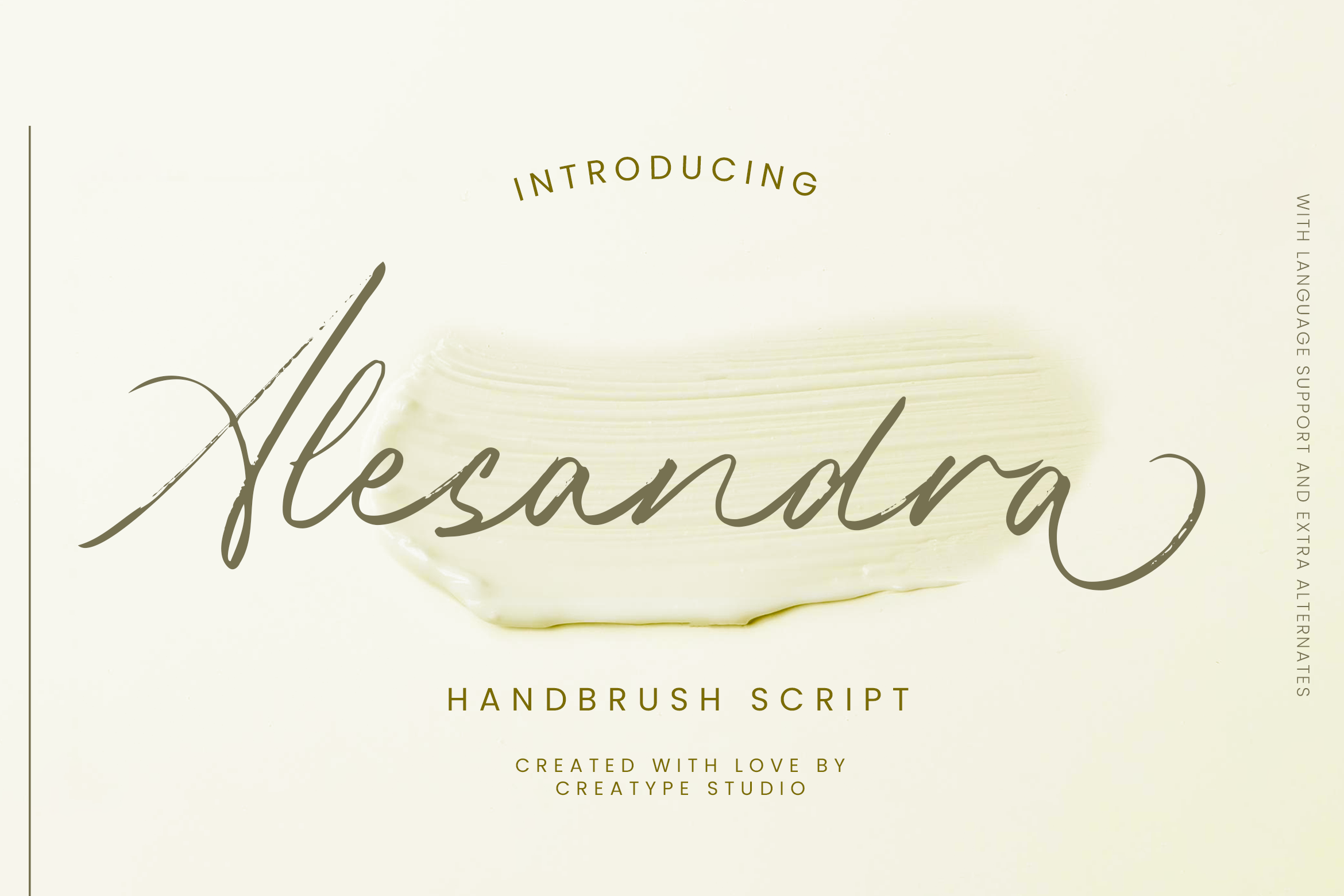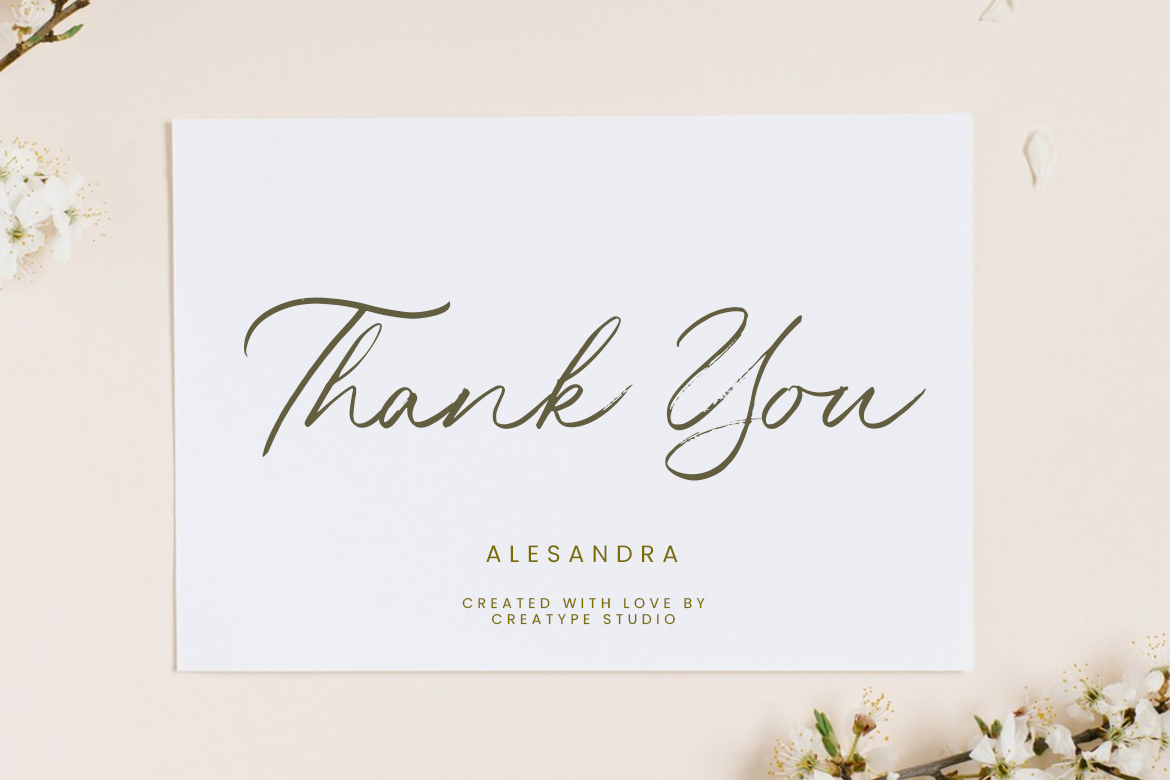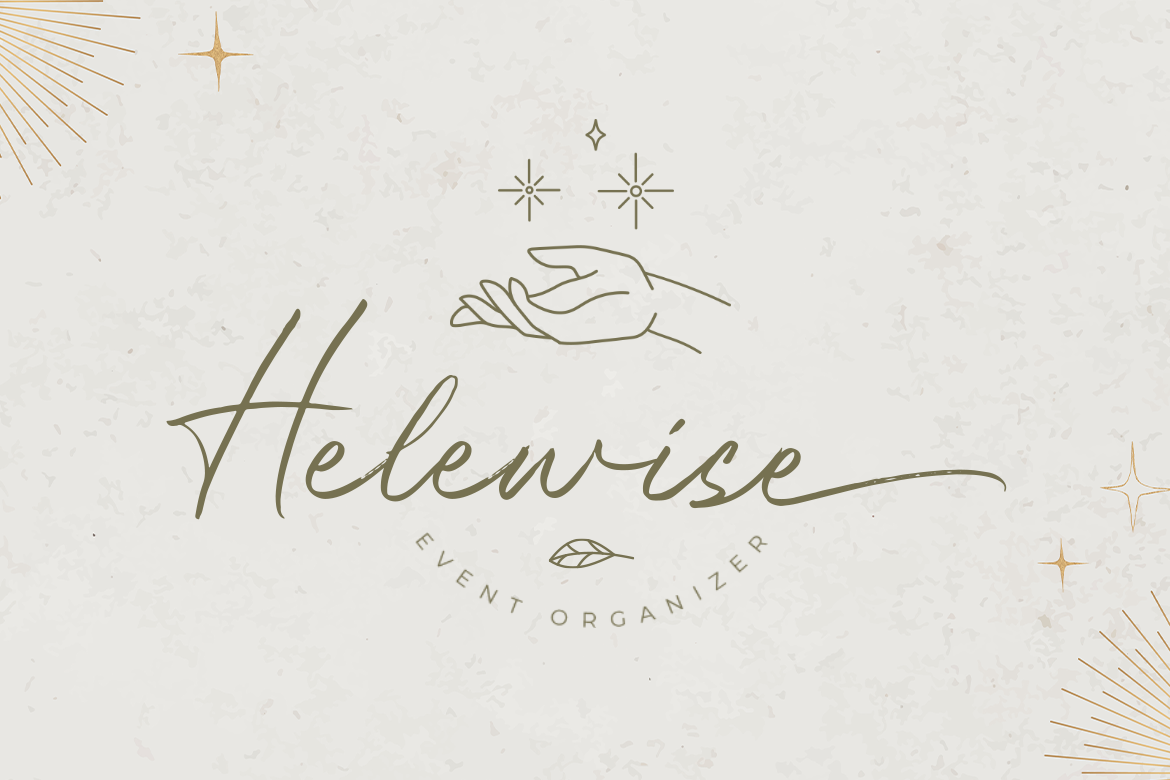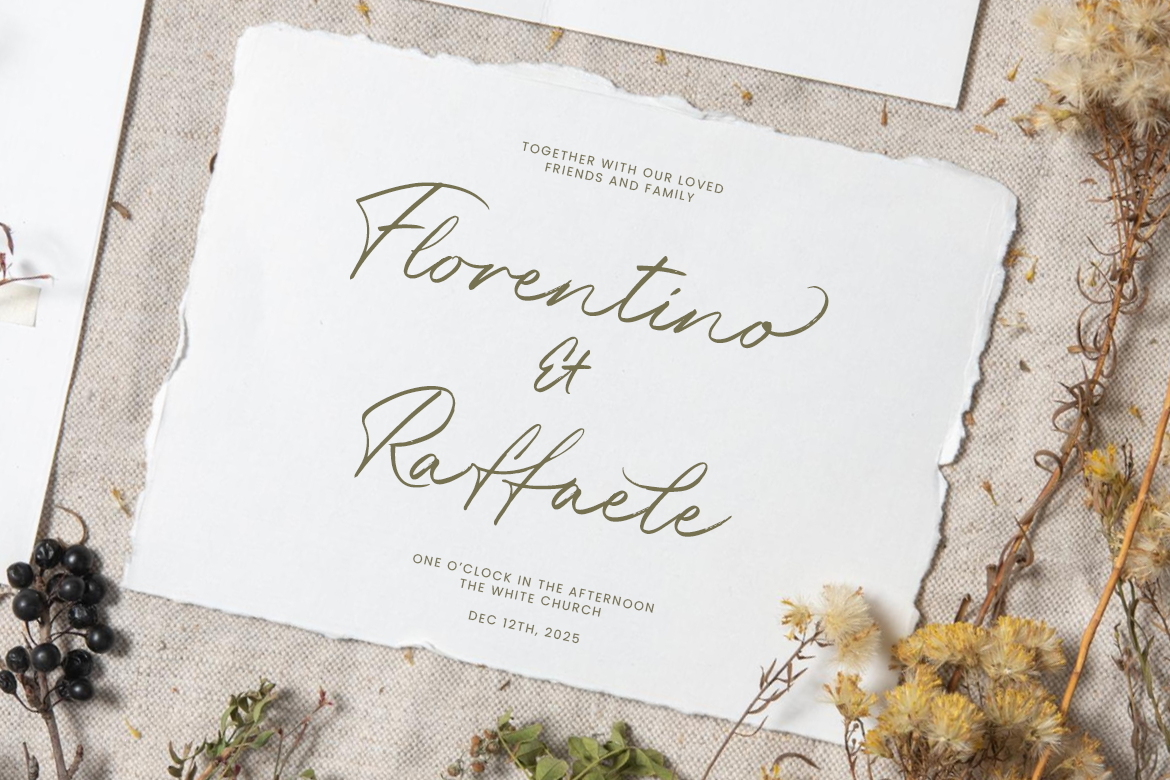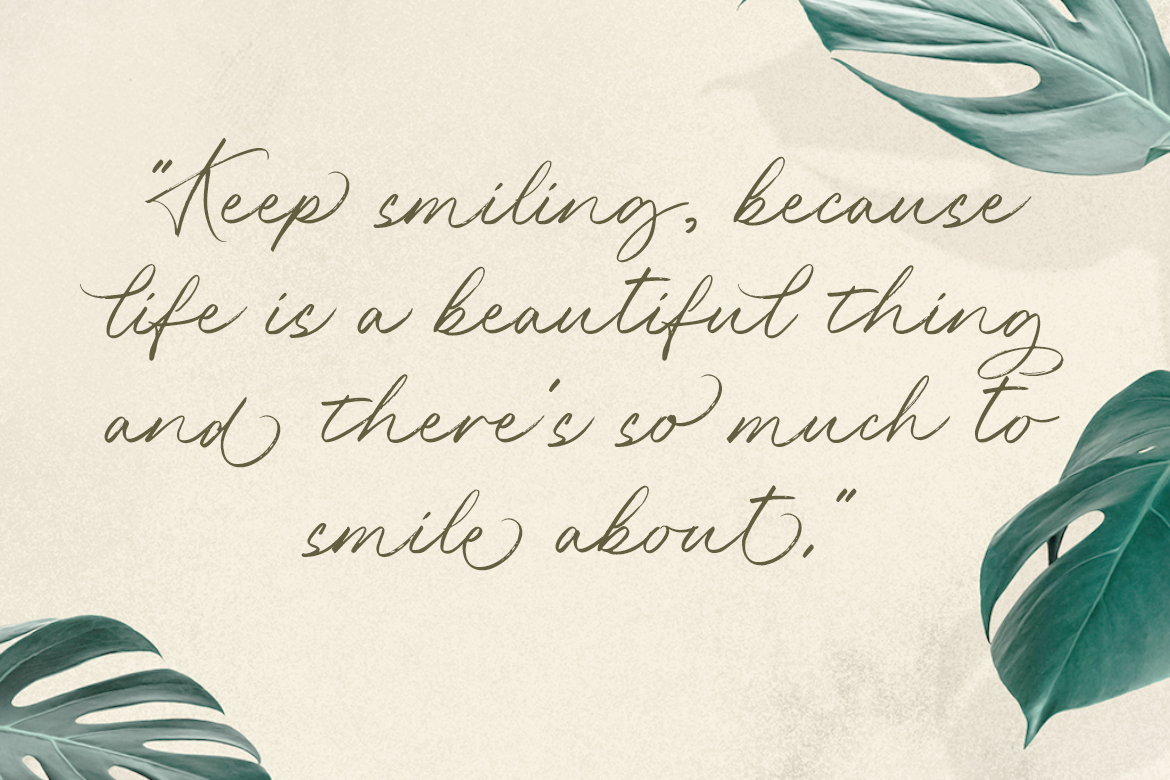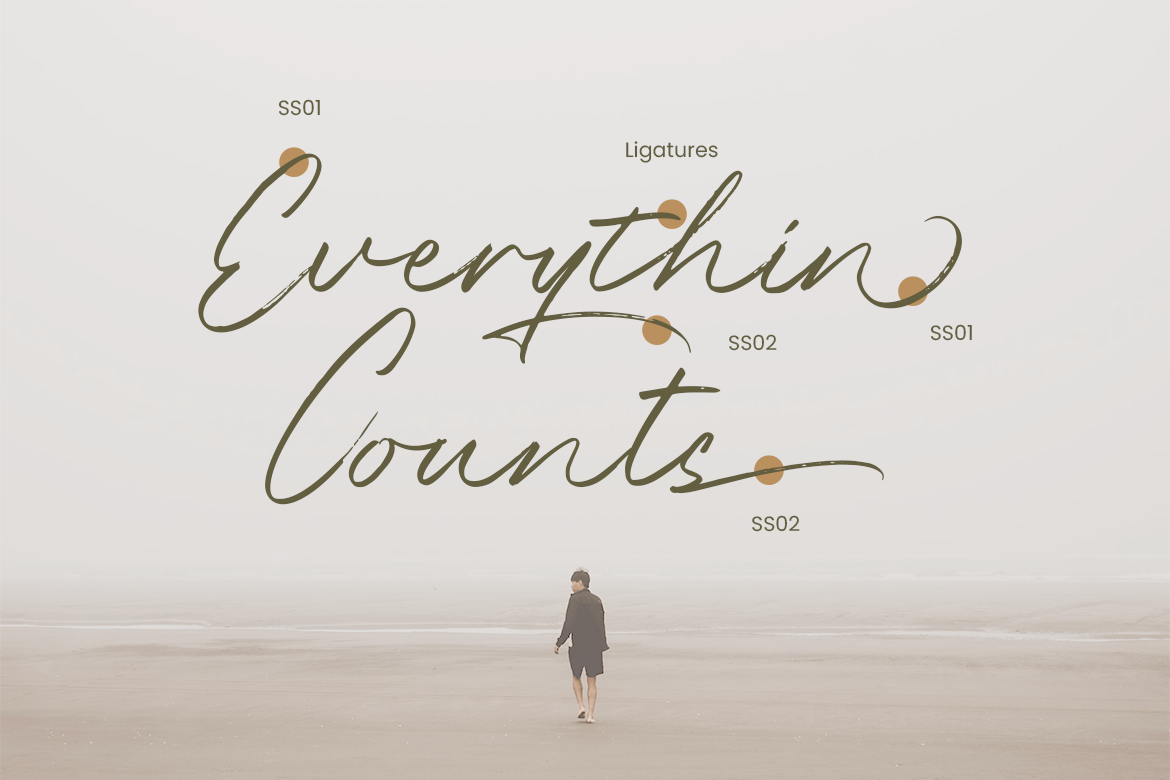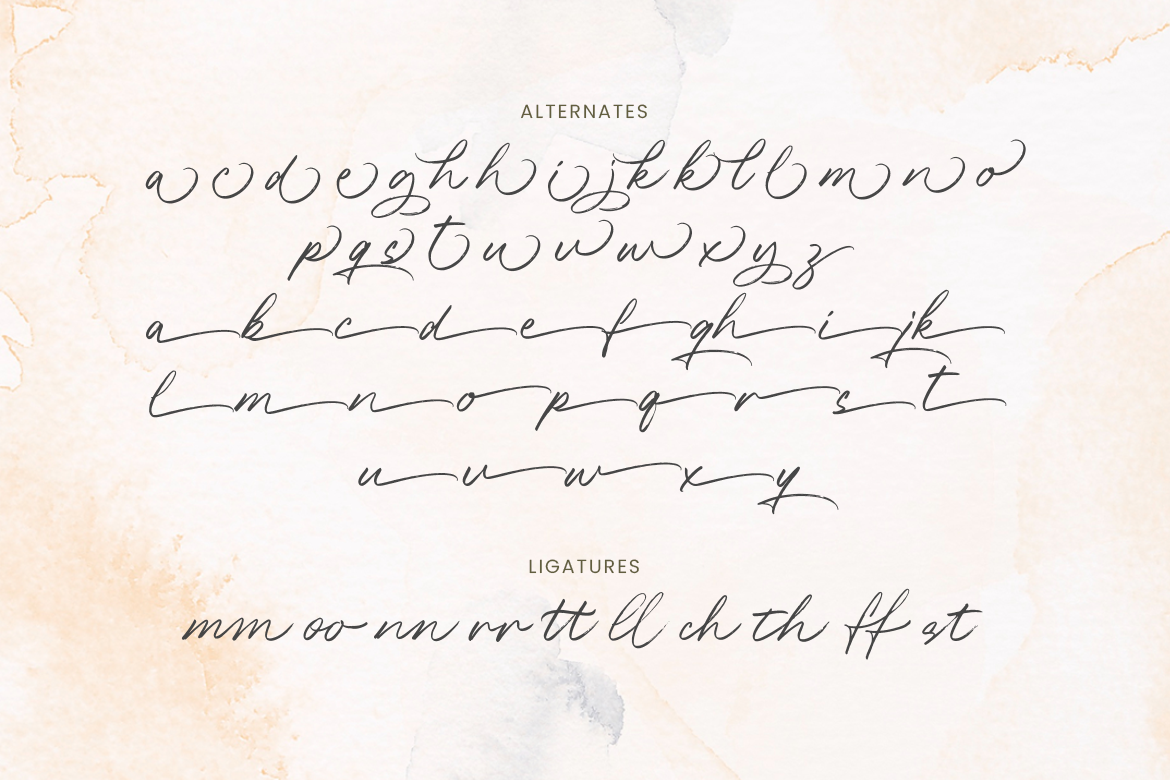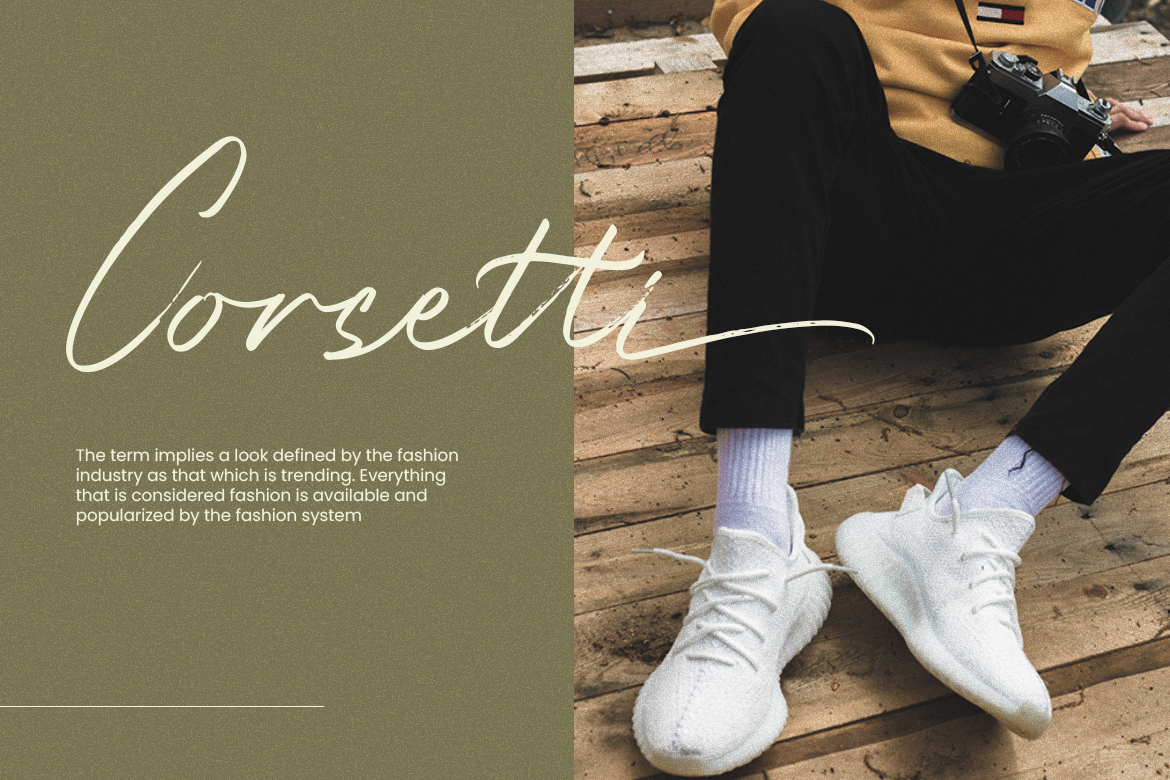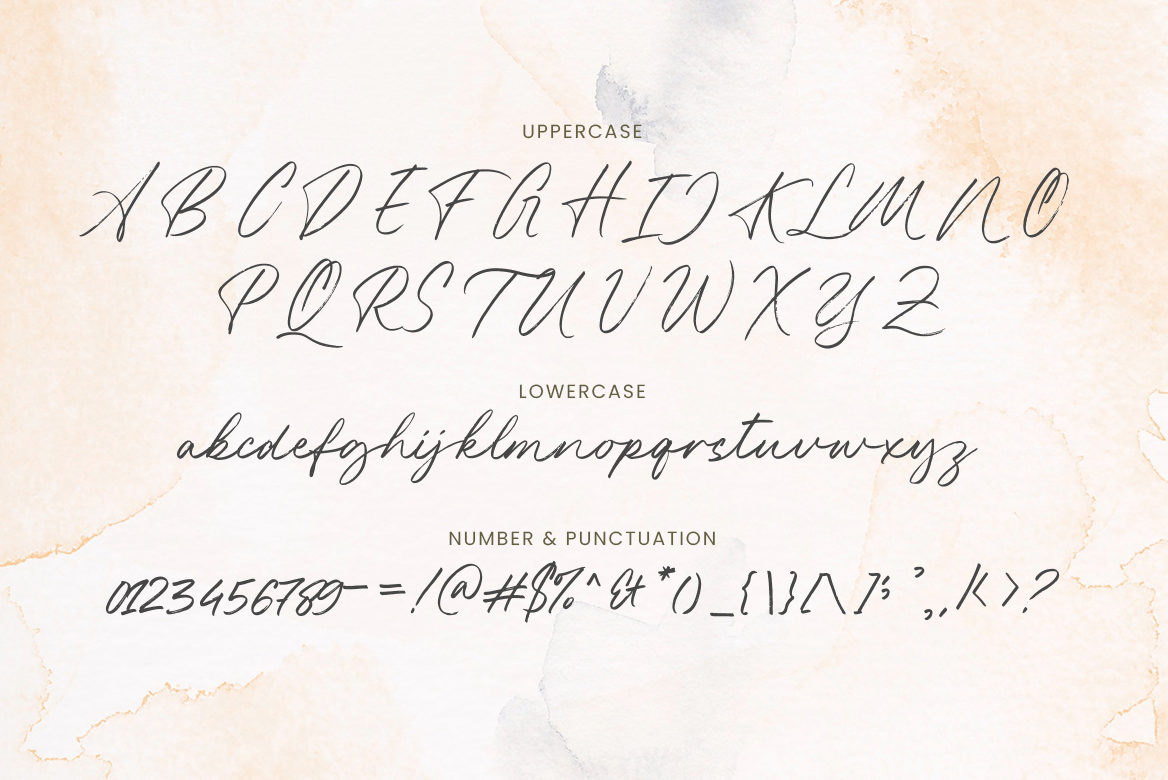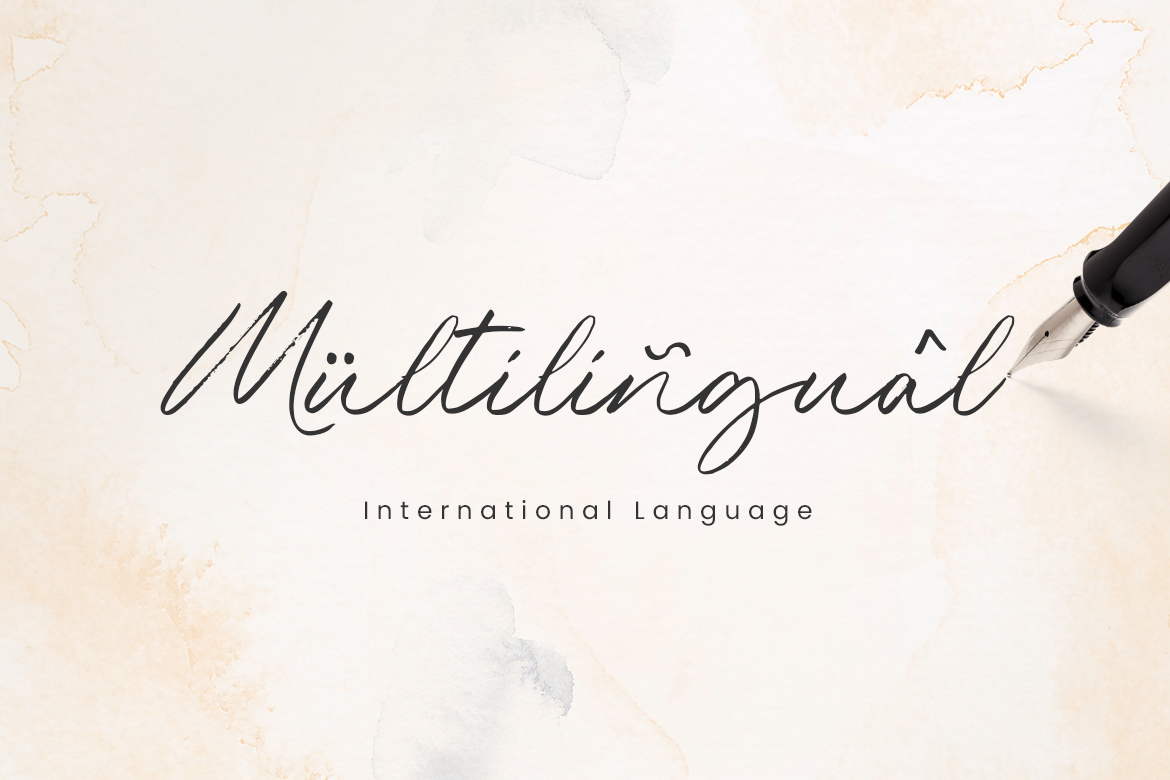
Alesandra is a a special Handbrush Script typeface because of its pretty and versatile look. Perfect for use with other typefaces or alone.
Alesandra is perfect for branding projects, logo, wedding designs, social media posts, advertisements, product packaging, product designs, label, photography, watermark, invitation, stationery and any projects that need handwriting taste.
Alesandra Handbrush Script